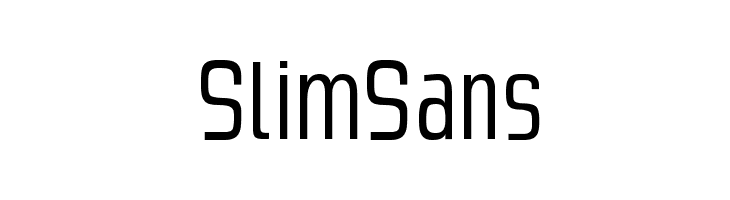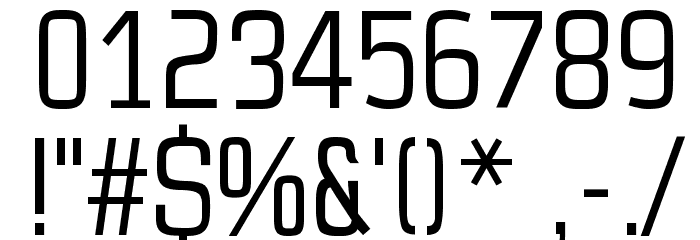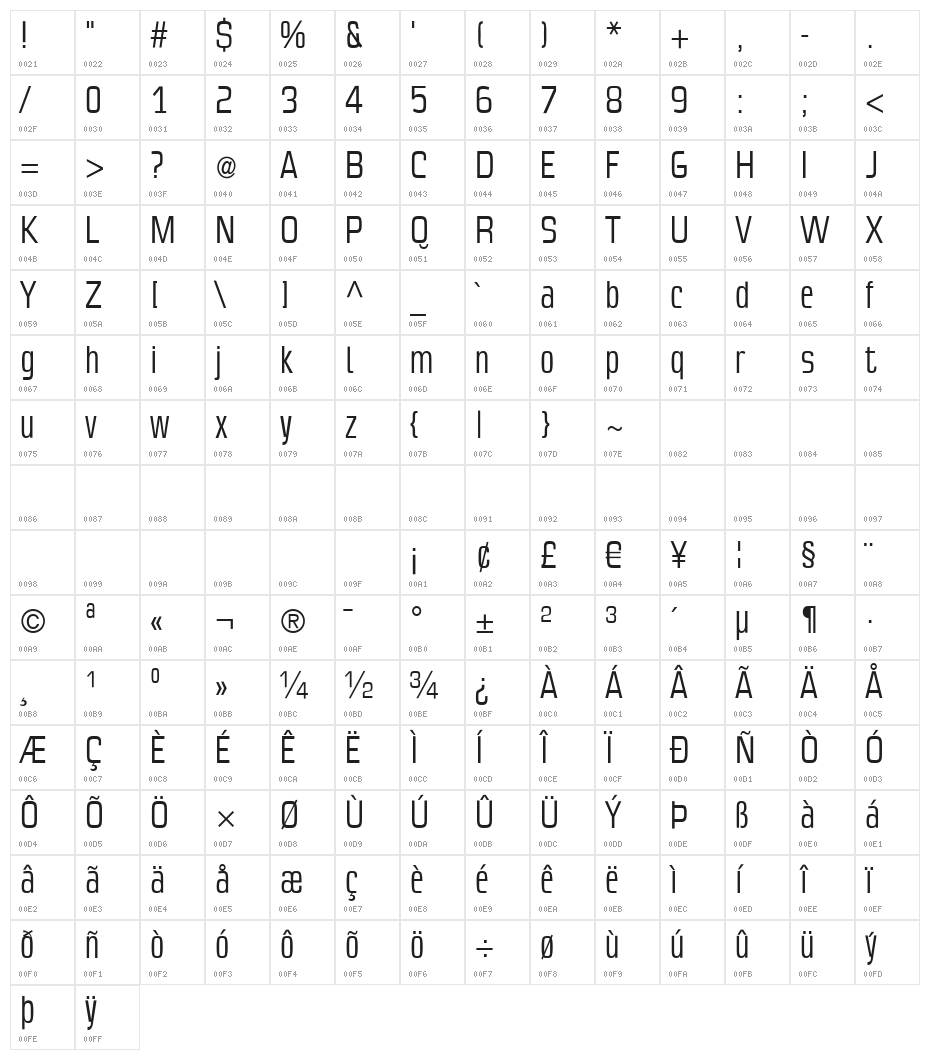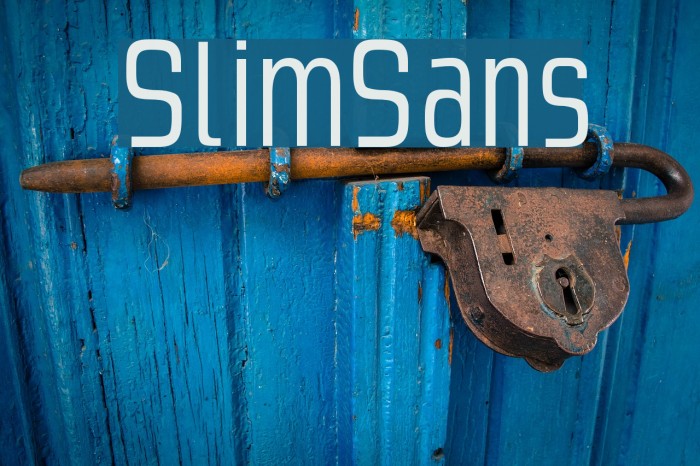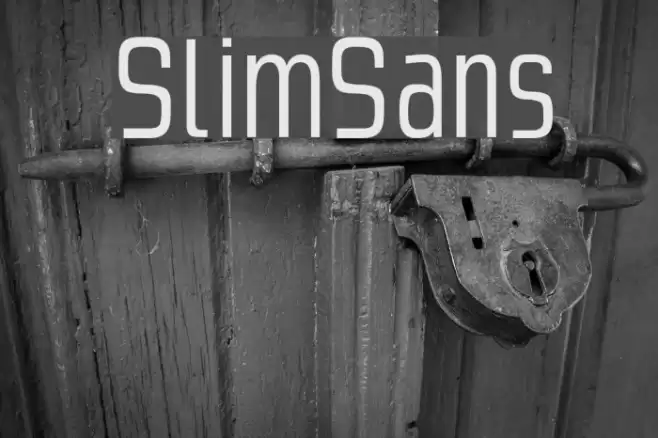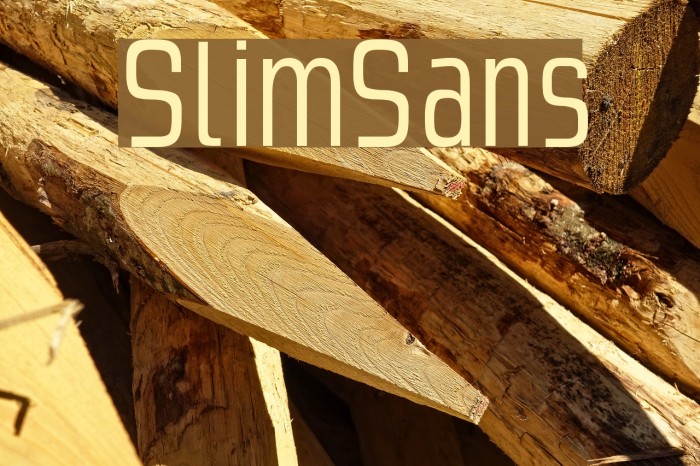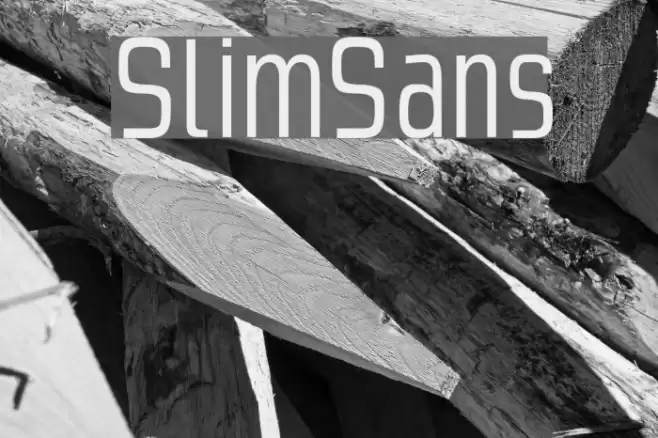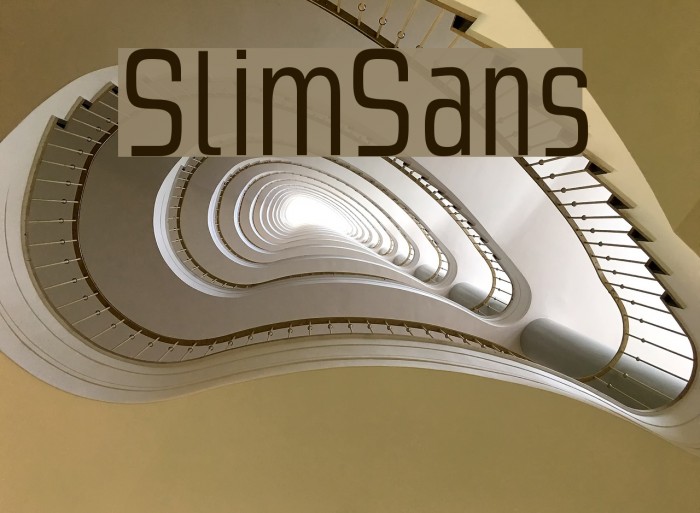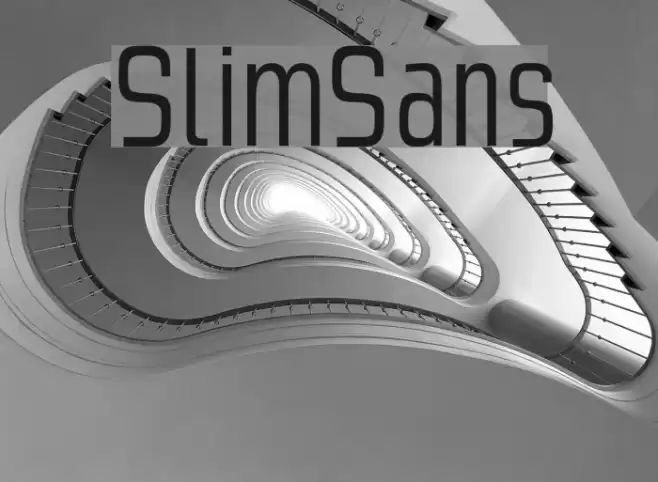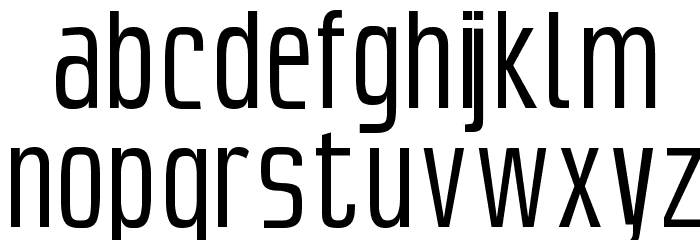
SlimSans Font
SlimSans Description
This font features a clean and modern sans-serif design with a sleek, streamlined appearance. The characters are tall and narrow, giving a sense of elegance and sophistication. The uniform stroke width across all characters provides a balanced and harmonious look. The uppercase letters are bold and commanding, while the lowercase letters maintain a consistent style that complements the overall aesthetic. The numerals are clear and easy to read, making them suitable for various applications. The special characters are well-integrated, ensuring versatility in design projects. This font is ideal for creating a contemporary and professional look.